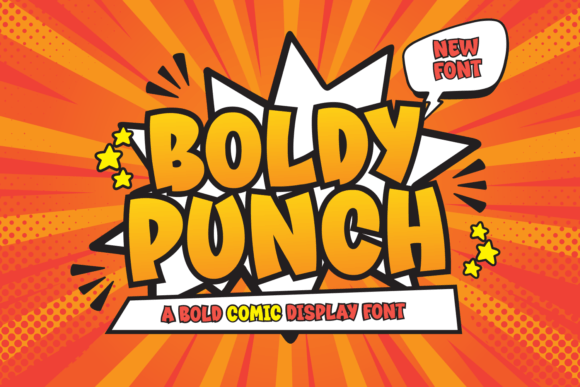
The Ultimate Display Font: Boldy Punch
I’ll never forget the time I was working on a superhero-themed project for a client, and I just couldn’t find the right font to convey the sense of strength and energy I was looking for. The client wanted a bold, eye-catching design that would make their brand stand out, but I was struggling to find a font that fit the bill. That was until I stumbled upon Boldy Punch, a bold comic display font that’s perfect for projects that need a superhero-inspired vibe.
A Personal Review of Boldy Punch
- ✨ Bold and eye-catching: Boldy Punch is the perfect font for making a statement. Its bold design is sure to grab attention and leave a lasting impression.
- ✅ Versatile: Despite its bold design, Boldy Punch is surprisingly versatile. It can be used for both retro and modern themes, making it a great choice for a wide range of projects.
- 💥 High-impact display work: Boldy Punch is designed specifically for high-impact display work, making it perfect for titles, headings, and other attention-grabbing elements.
While Boldy Punch is an amazing font, it’s not without its quirks. Here are a few things to keep in mind:
- 🤔 Legibility at small sizes: While Boldy Punch is designed for display work, it can be a bit tricky to read at smaller sizes. Be sure to test it out at different sizes to ensure it’s legible for your project.
- ⚠️ Limited use for body text: Due to its bold design, Boldy Punch is not suitable for body text. It’s best used for headings, titles, and other attention-grabbing elements.
The Backstory of Boldy Punch
Boldy Punch was designed by a team of typographers who wanted to create a font that would capture the energy and excitement of comic books. The font is inspired by the classic comic book fonts of the 1980s and 1990s, but with a modern twist. The designers wanted to create a font that would be perfect for display work, such as titles, headings, and other attention-grabbing elements.
Q: What is Boldy Punch?
A: Boldy Punch is a bold comic display font that’s perfect for projects that need a superhero-inspired vibe.
Q: What is Boldy Punch used for?
A: Boldy Punch is designed specifically for high-impact display work, such as titles, headings, and other attention-grabbing elements.
Q: Can I use Boldy Punch for body text?
A: No, Boldy Punch is not suitable for body text. Its bold design makes it best suited for headings, titles, and other attention-grabbing elements.
Q: Is Boldy Punch easy to read?
A: Boldy Punch can be a bit tricky to read at smaller sizes, but it’s designed to be eye-catching and attention-grabbing. Be sure to test it out at different sizes to ensure it’s legible for your project.